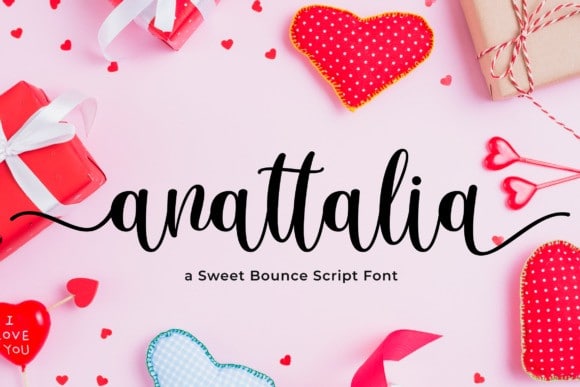
Anattalia is cute and lovely, but also fancy. This versatile script font has a wide range of applications ranging from greeting cards to headlines and is guaranteed to add a romantic touch to your next design.
This font is PUA encoded which means you can access all of the cute glyphs and swashes with ease! It also features a wealth of special features including alternate glyphs and ligatures.